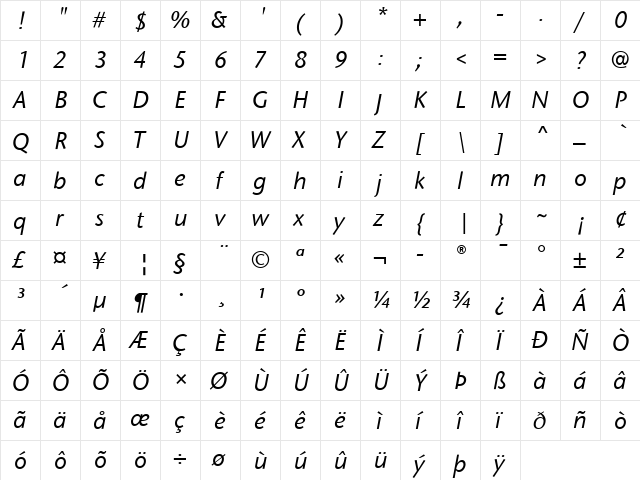
StoneSansITC Medium Italic
Design Context for StoneSansITC Typeface
StoneSansITC is a composed and adaptable typeface that performs quietly and consistently across a wide range of design contexts. The dynamic lean of this cut emphasises speed and emphasis in any layout.
Pro Tip: Use StoneSansITC for emphasis, pull quotes, and subheadings where its slanted energy can add rhythm to the layout.